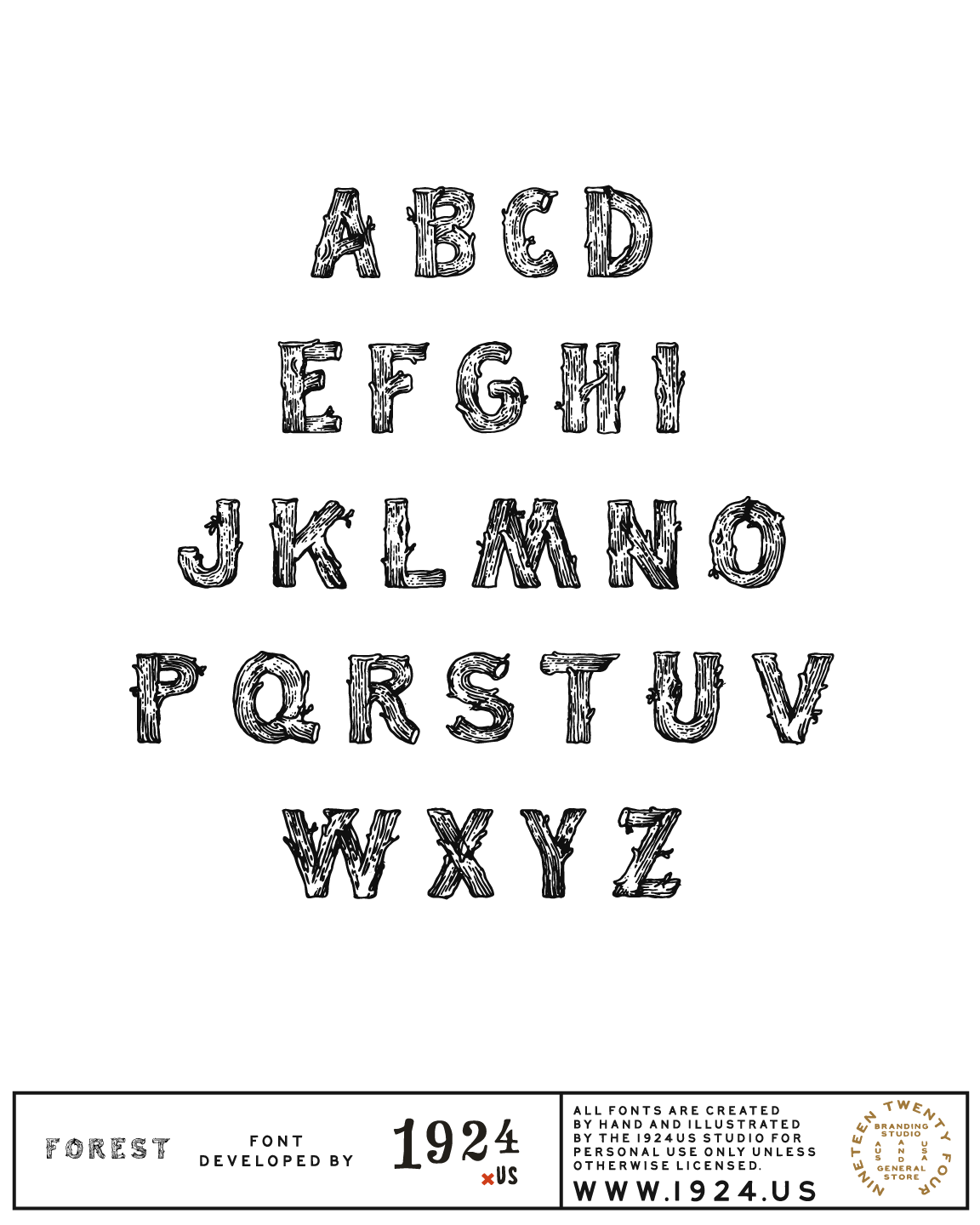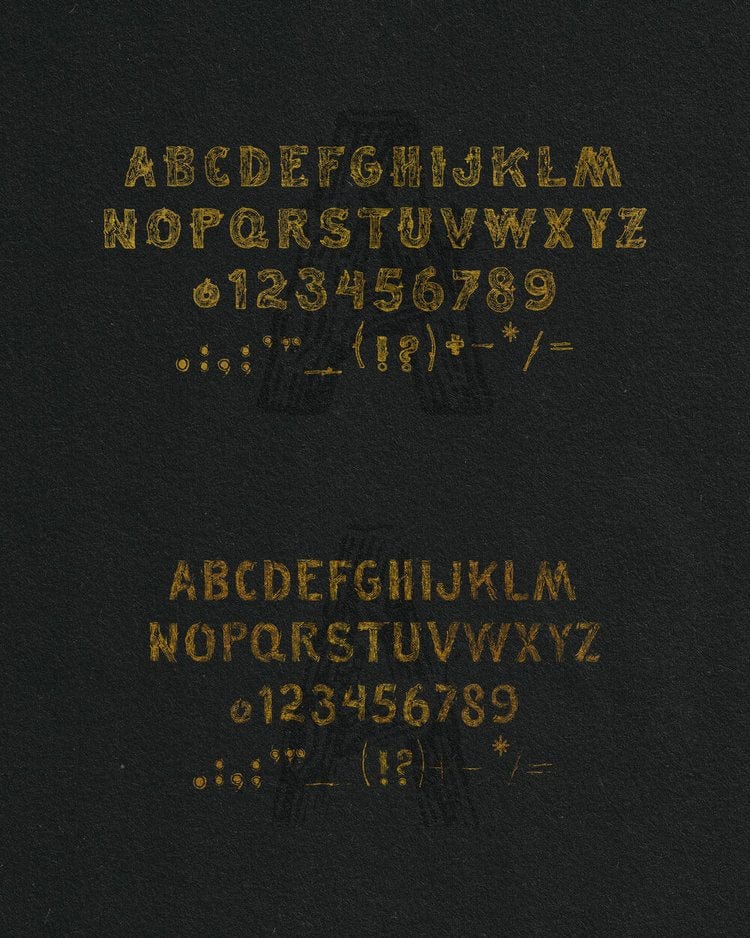
Forest Font by 1924us
An illustrative font that includes two styles: Single Line and Bold, so you’ll have the choice of how to aesthetically present your font. Each set includes numbers, single case, and special characters.